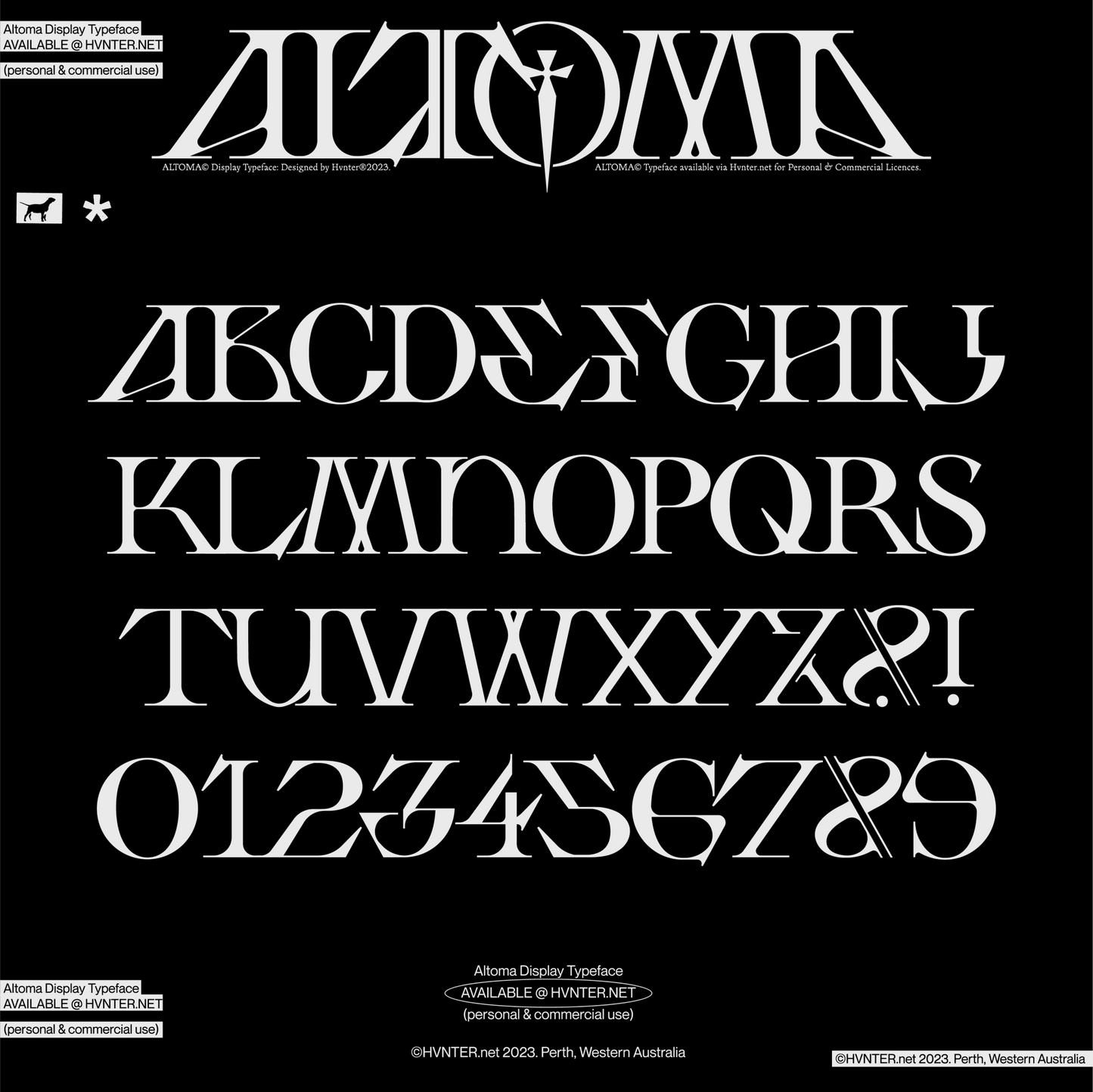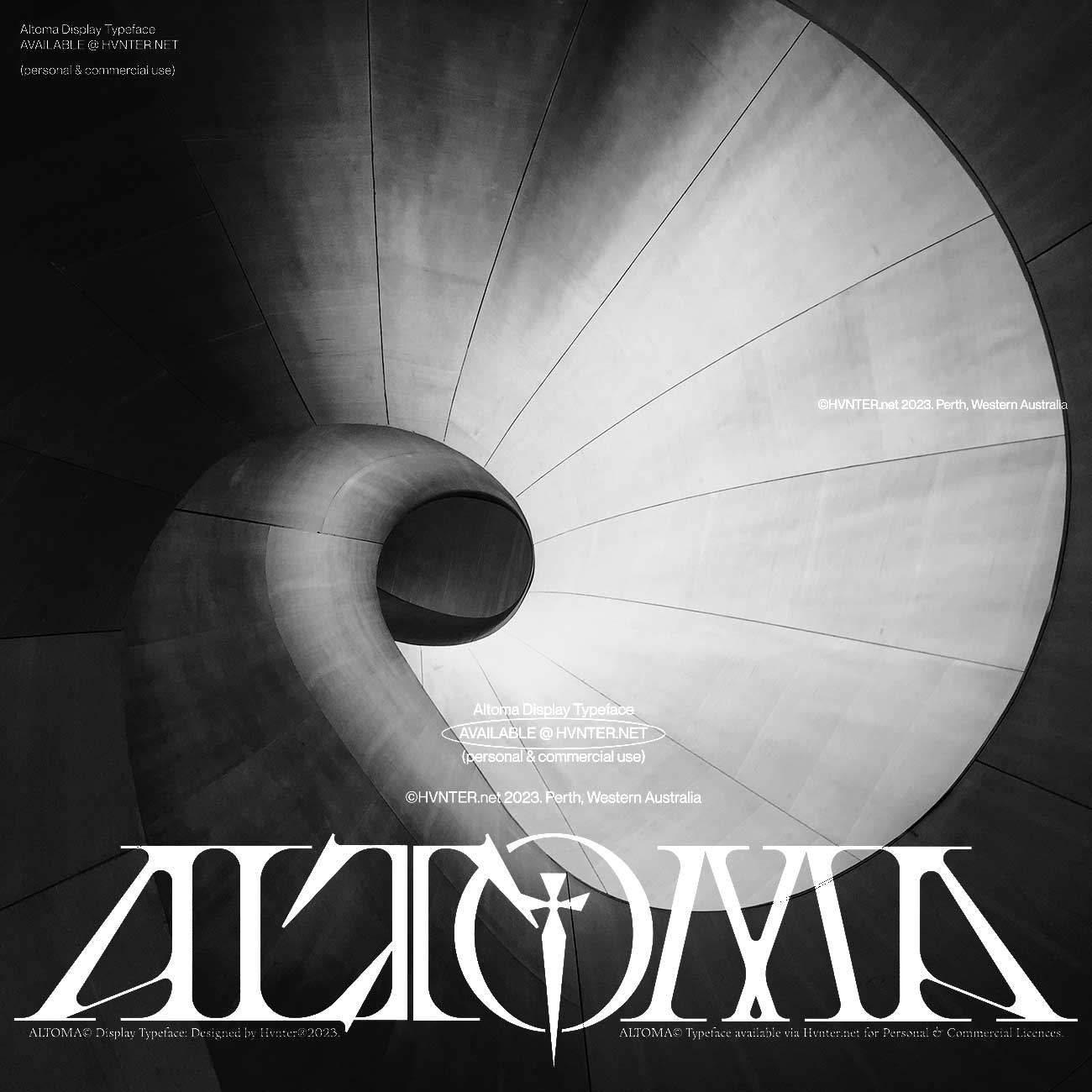
Altoma Typeface
ALTOMA wasn’t drawn casually, it was carved.
Every letter stands like it was set in stone, tension pulled tight between sharp serifs and sculpted curves. The forms stretch vertically, disciplined and deliberate. The O becomes a symbol. The cross becomes a blade. The entire alphabet feels like it belongs to a system — not just a font file.
ALTOMA doesn’t whisper. It declares.
This is display typography built for scale. For monuments. For statements that don’t intend to fade.
The Energy
Altoma lives in contrast.
Structure and elegance.
Ritual and modernity.
Authority and refinement.
It feels like: a fashion house identity, a dystopian sports league crest, a Berlin runway show, a brutalist cathedral banner, a techno label imprint, a manifesto set in type.
There’s symmetry. There’s symbolism. There’s tension in the diagonals and confidence in the verticals.
Where It Thrives
Altoma performs best in:
- Logos
- High-fashion campaigns
- Editorial covers
- Posters
- Cultural institutions
- Premium streetwear graphics
- Brand marks that need gravity
ALTOMA loves negative space.
ALTOMA loves black and white.
ALTOMA loves acid yellow against matte black.
Give it room and it dominates.
ALTOMA is a display typeface — designed for scale and impact, not paragraphs. Use it large. Let the forms breathe.
Design DNA
The distinctive circular enclosure within the O and the blade-like cross motif create a built-in brand system. Even a single character carries identity weight.
You’re not just setting text.
You’re building insignia.